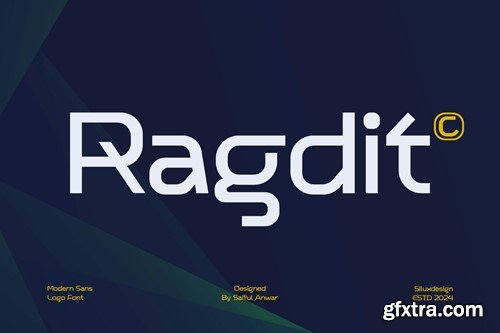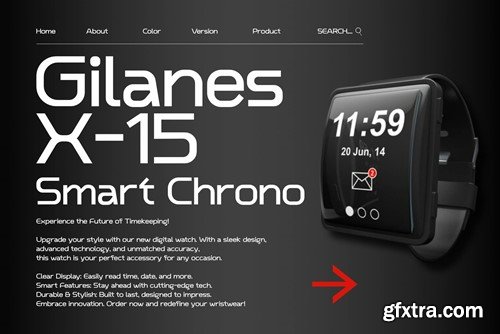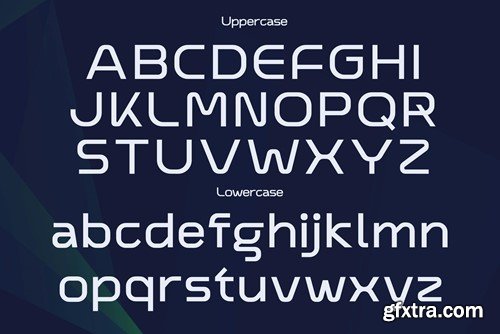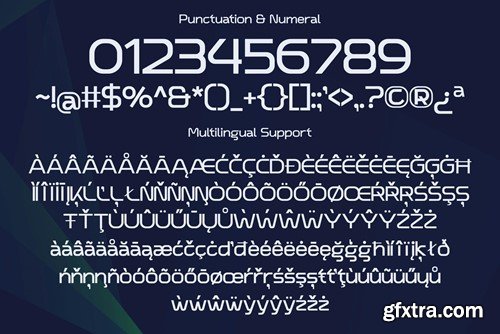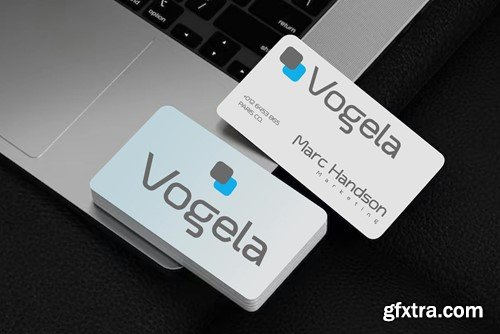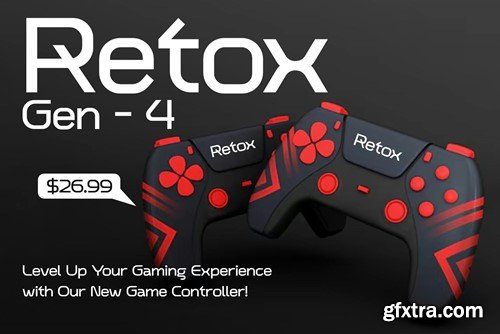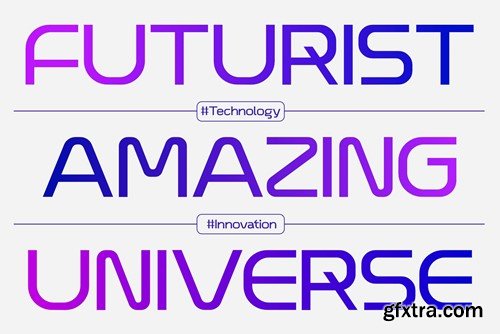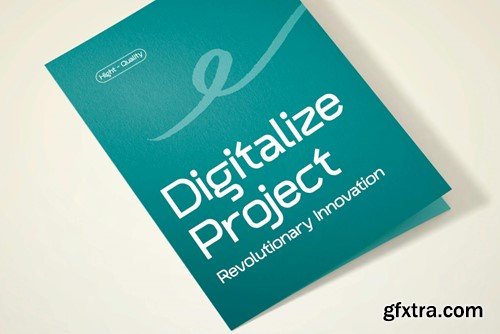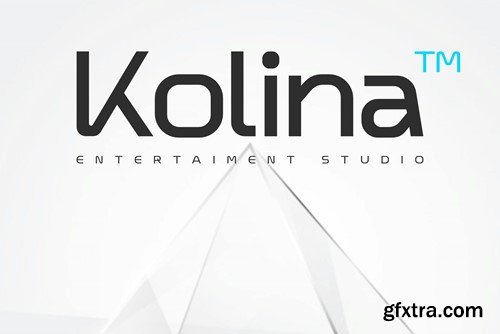
Ragdit - Modern Sans Logo Font
Ragdit Modern Sans Logo Font Introducing Ragdit, a Modern Sans Logo Font designed specifically for branding, headlines, and standout typography. Ideal for themes of modernity and minimalism, this font is perfect for adding style to sci-fi, technology, and contemporary projects. Crafted with a modern and masculine feel, Ragdit enhances any project by clearly conveying your main ideas. Ragdit Modern Sans Logo Font includes: We hope you enjoy using Ragdit in your projects!